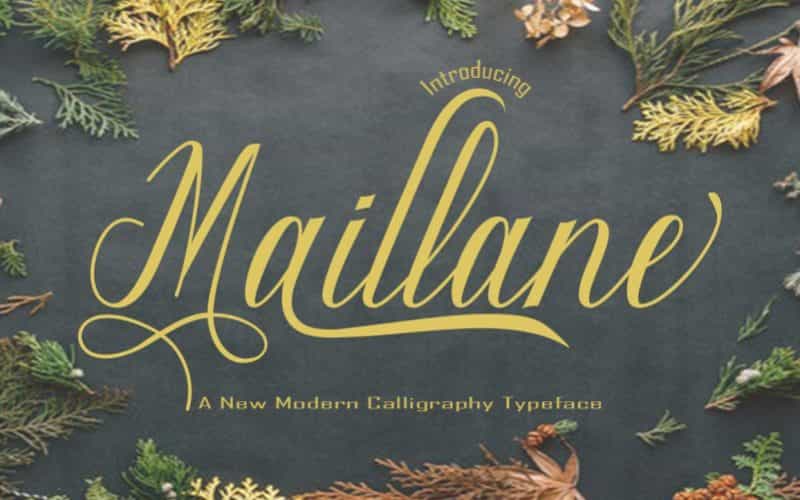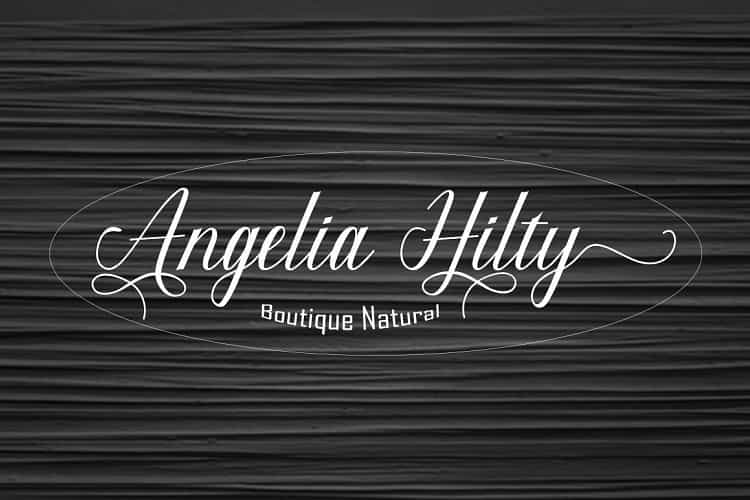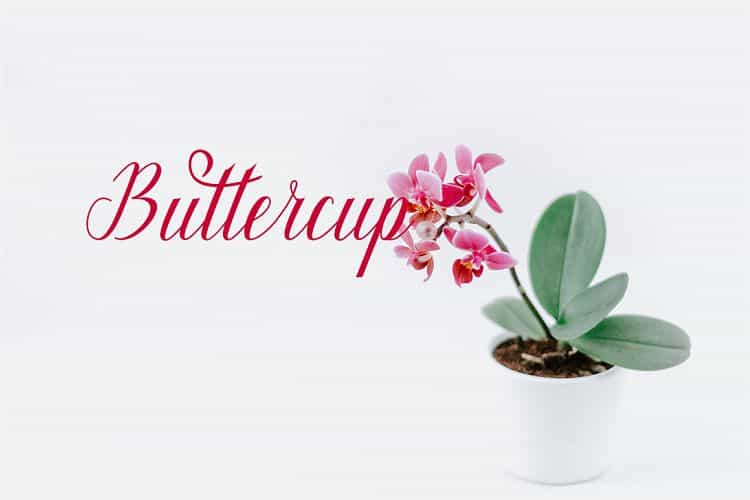
Maillane have some sources in Maillane stylish calligraphy that has variations of the base line, thin lines and is classical and elegant. This medium can be used for various objectives. With special reference to Title, Signature, Logo, Wedding Invitation, T-shirt, Letterhead, Nameplate, Label, News, Poster, Badge and so on.